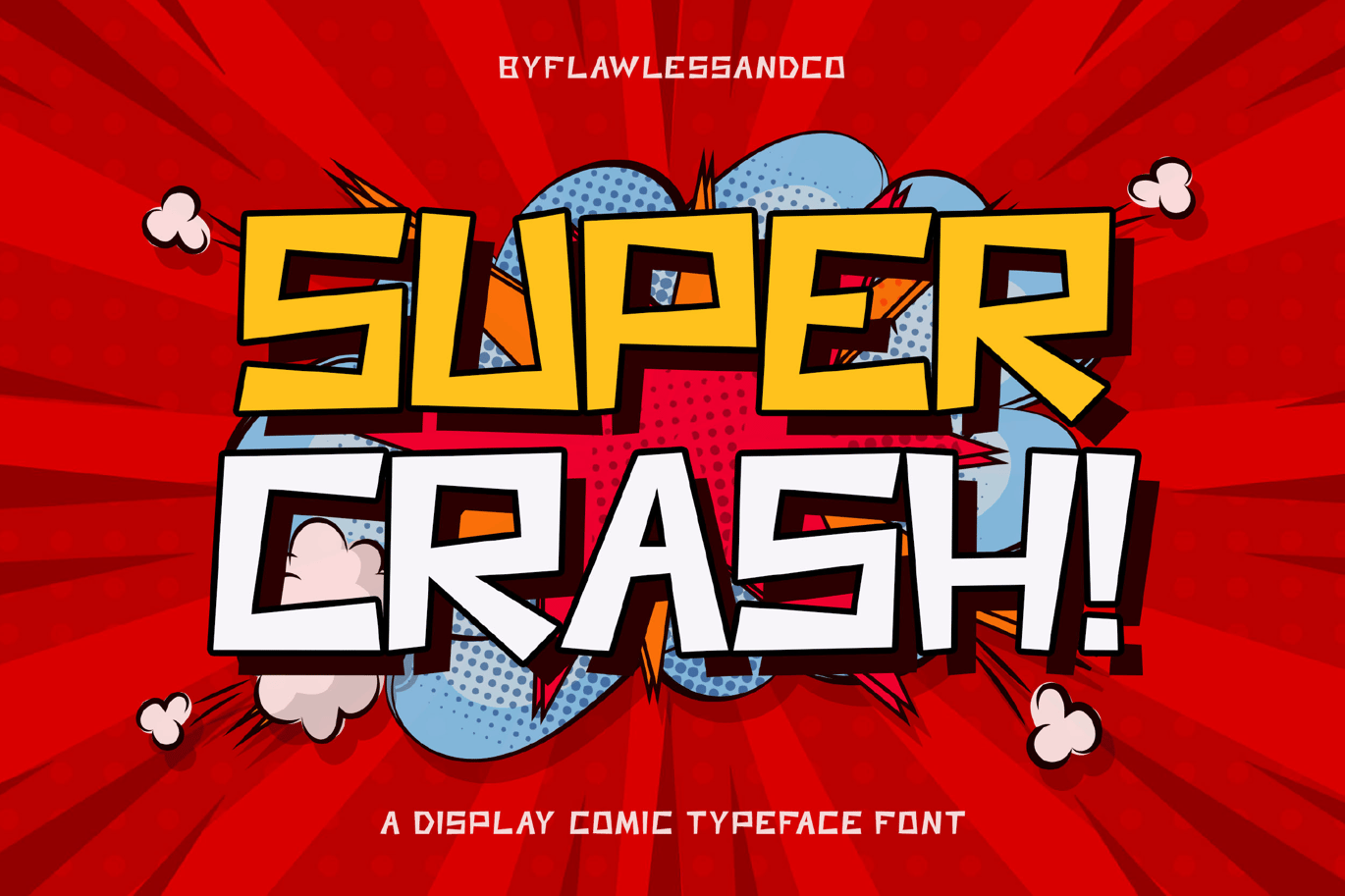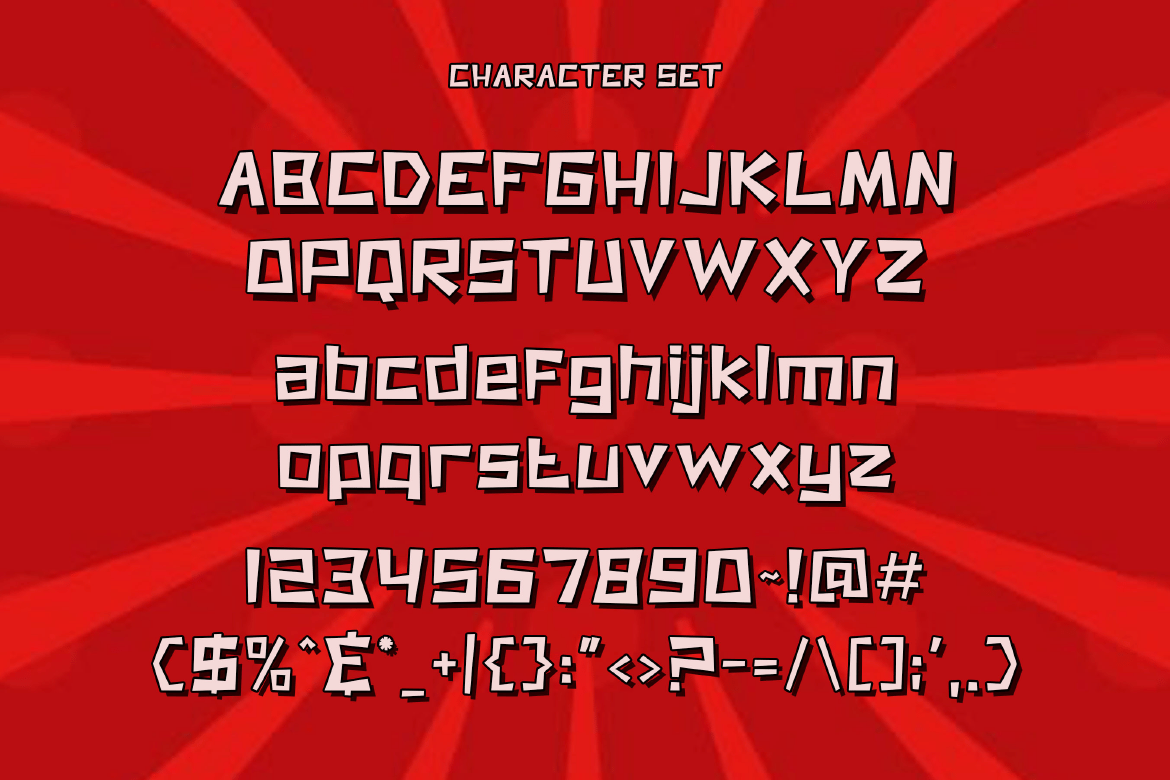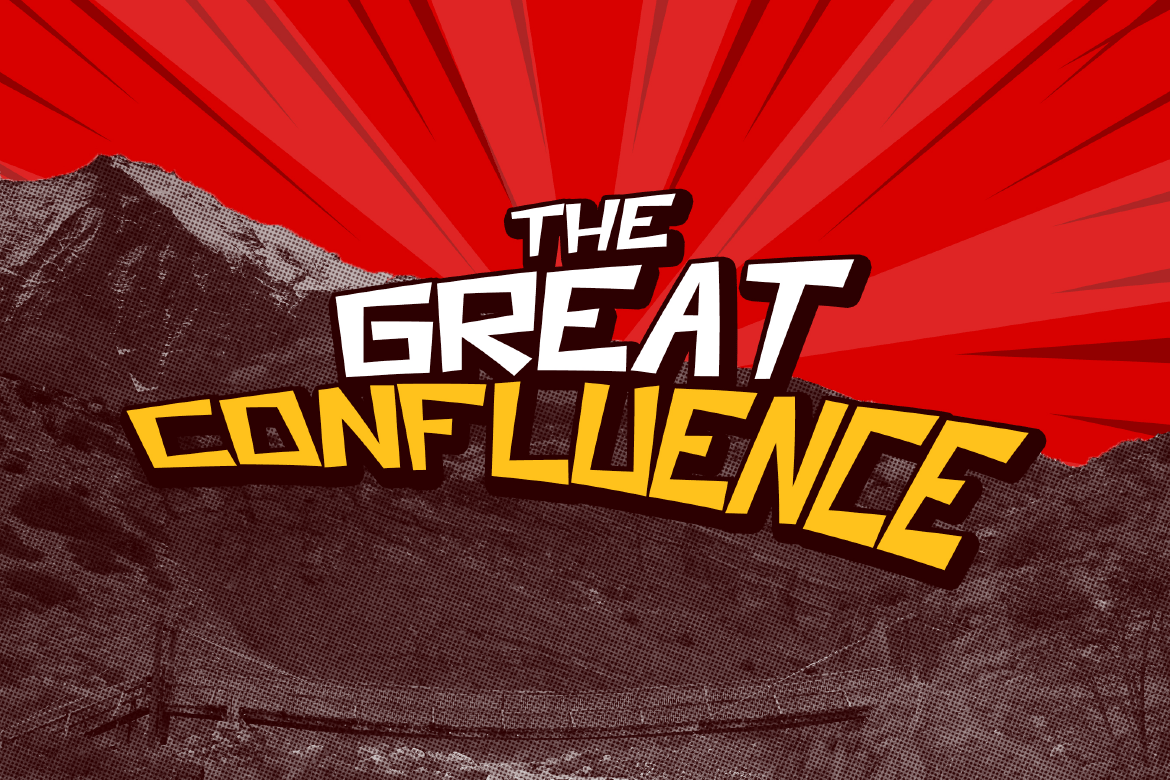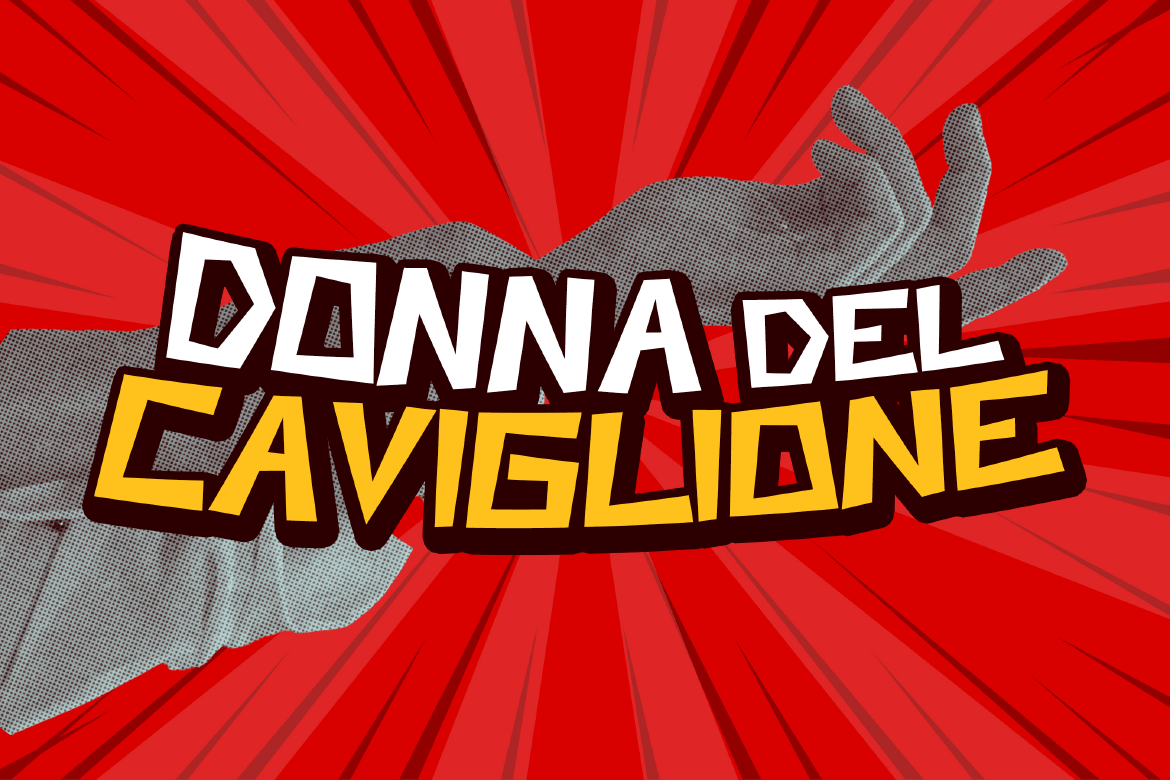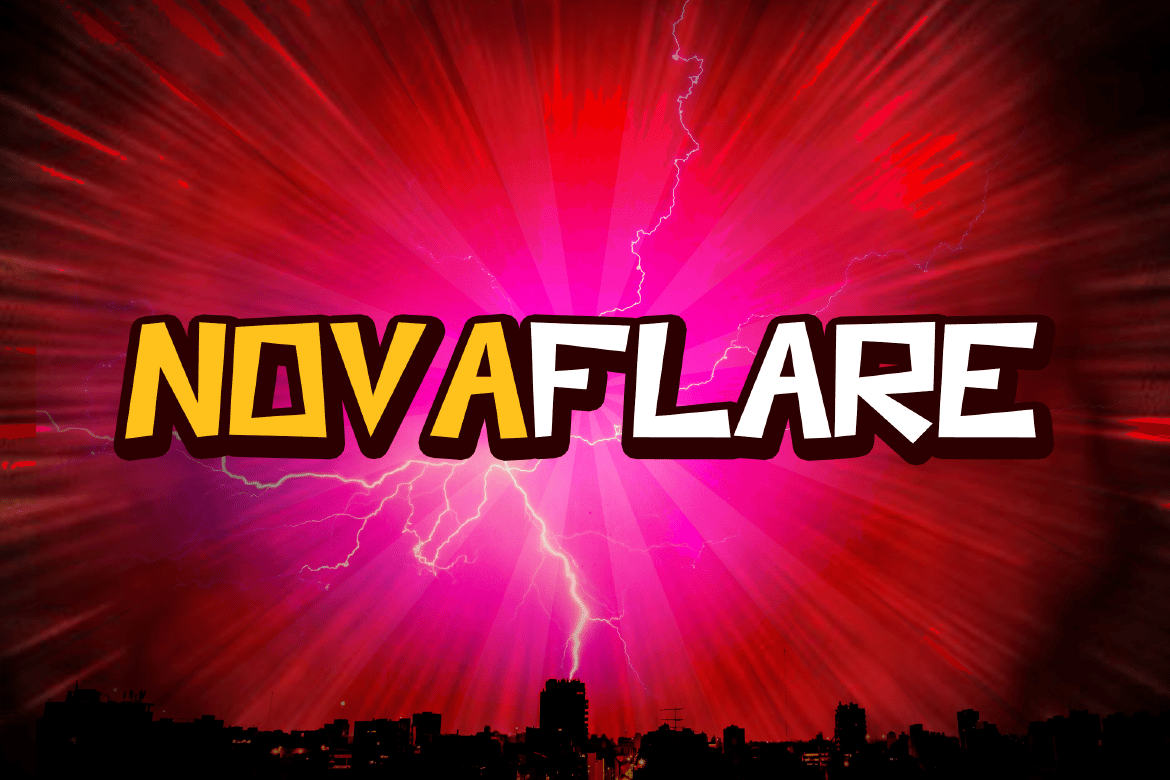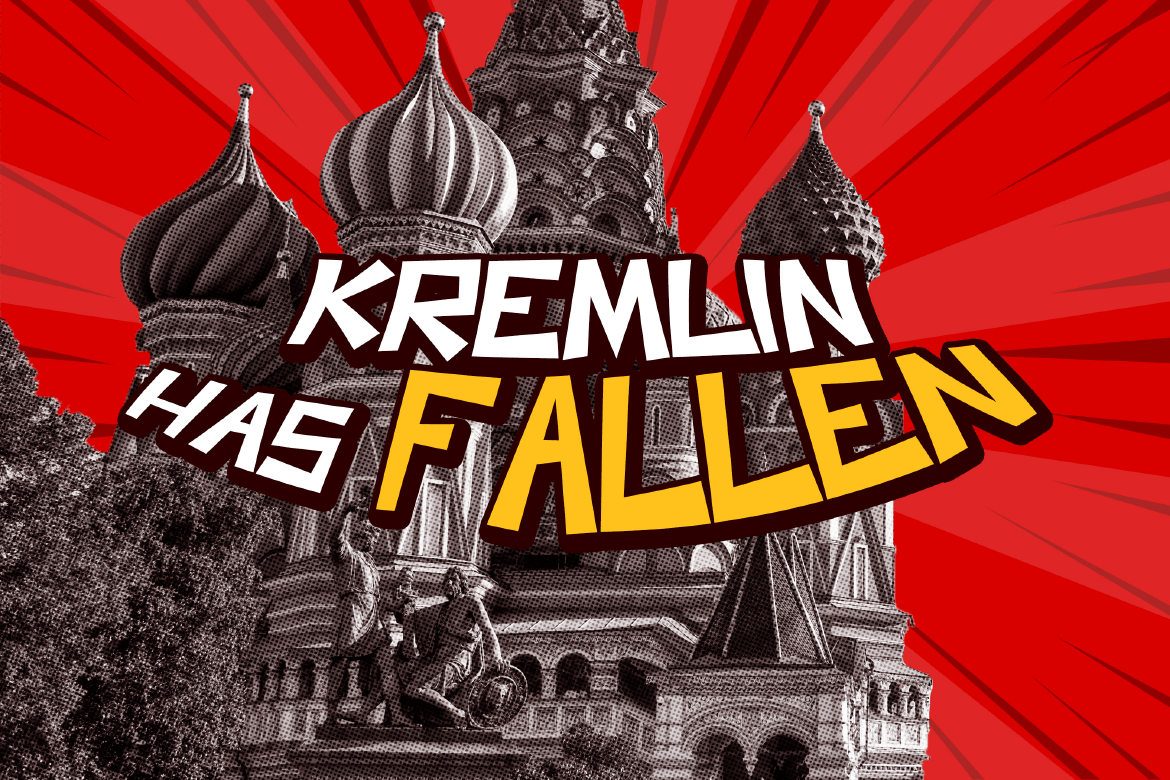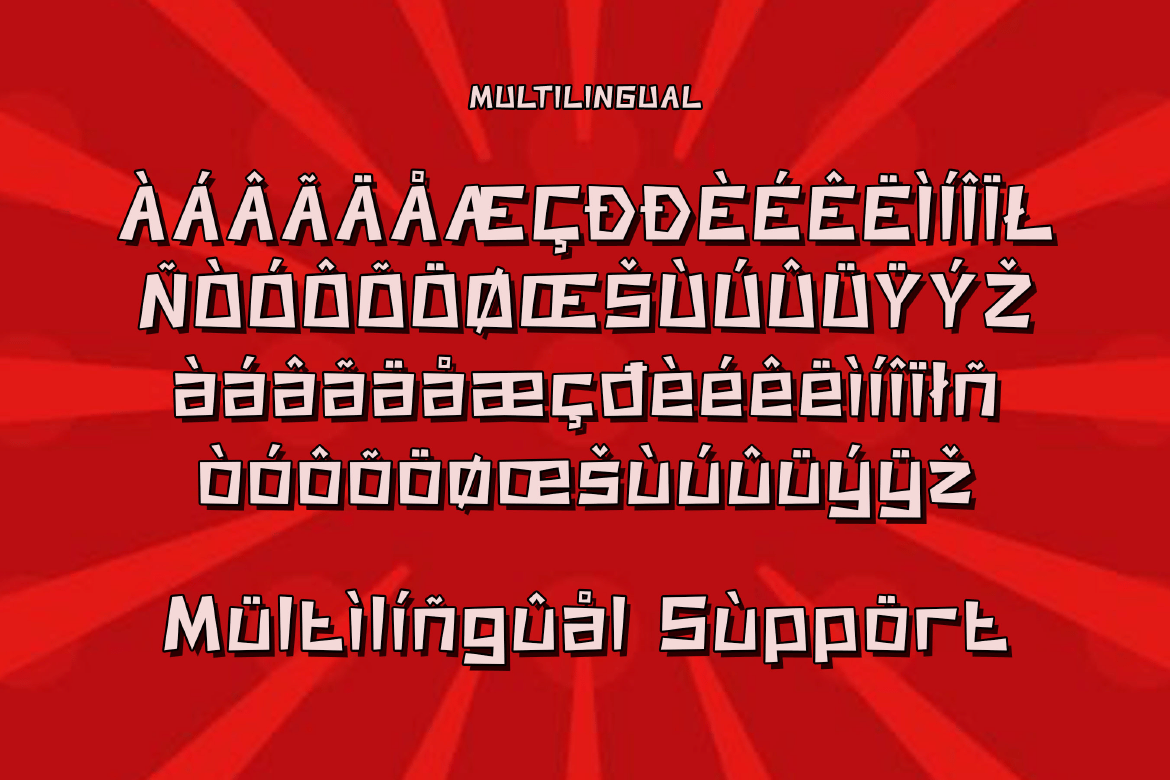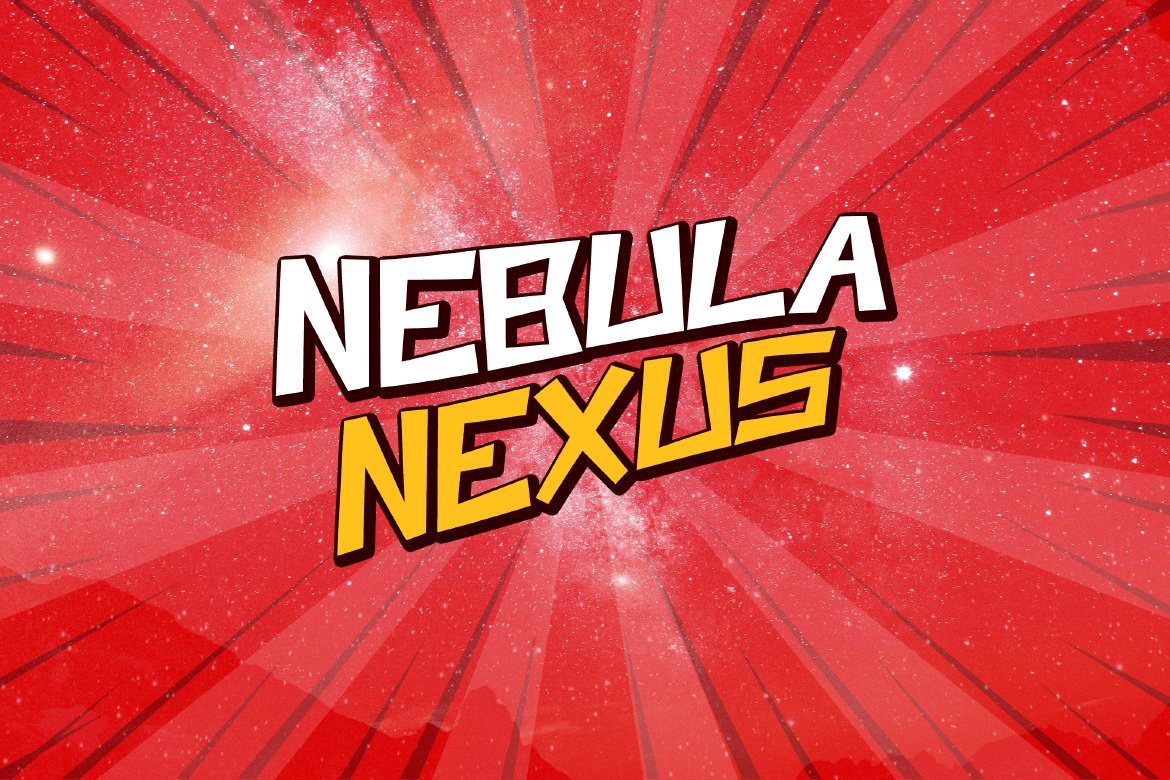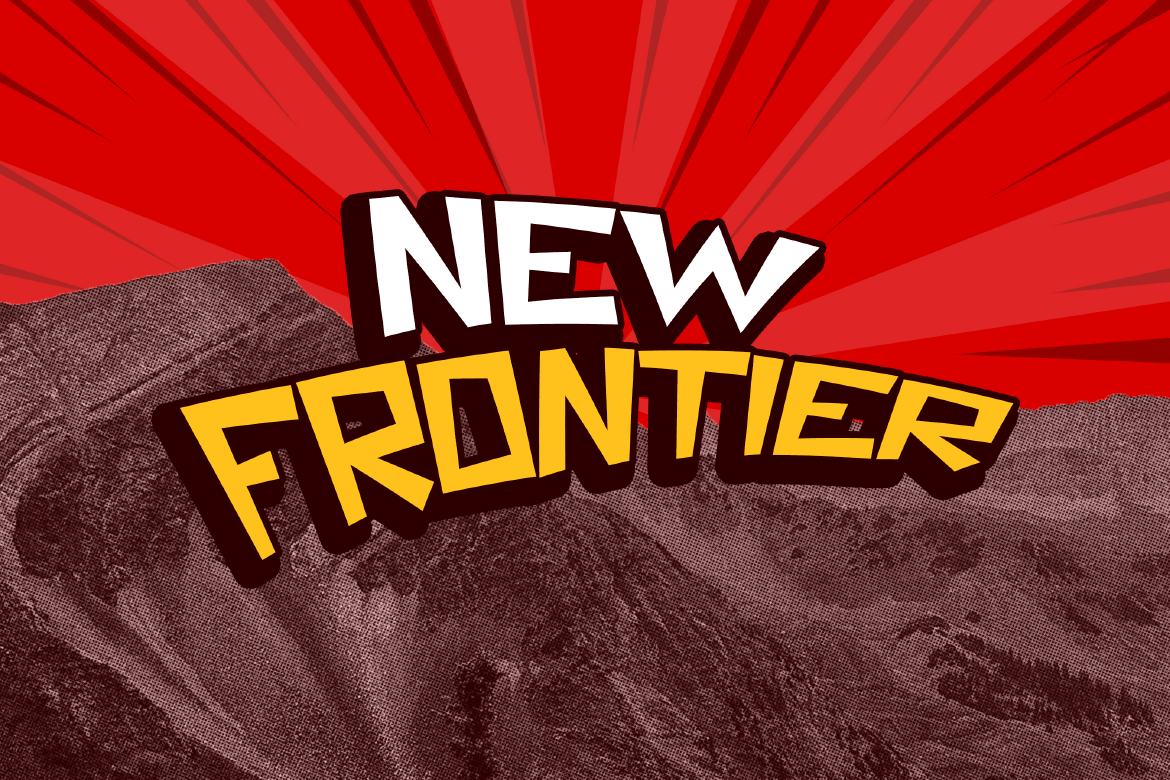
Super Crash – Comic Font
Introducing “Super Crash” – A Playful Display Comic Typeface, a display comic typeface designed to infuse your designs with vibrant energy and lighthearted charm. Whether you’re crafting comic book illustrations, playful posters, children’s book covers, or eye-catching headlines, Super Crash brings a delightful sense of play to every project.